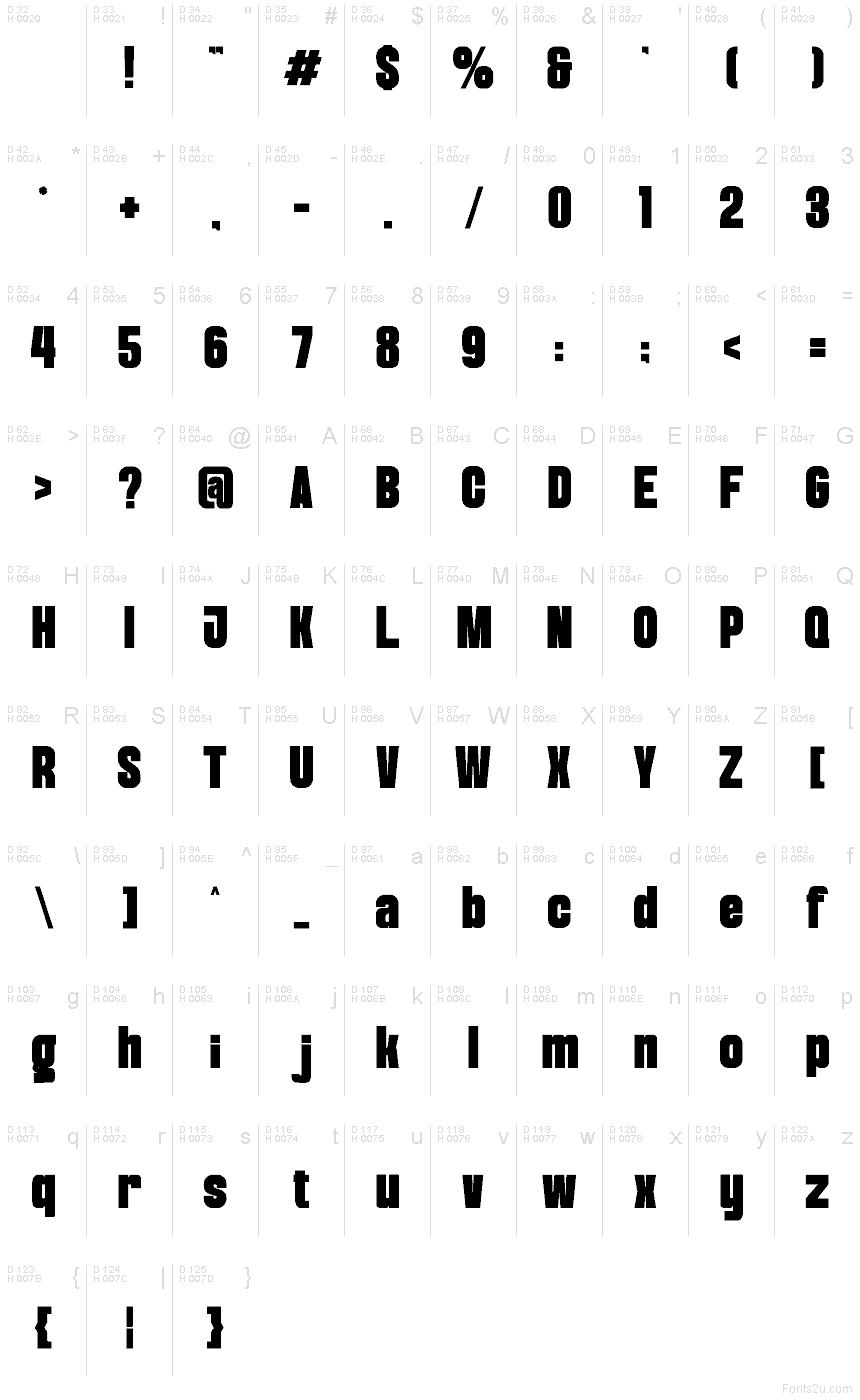
Klodera font by Ermedia Studio is a free ultra-bold display sans serif font. When you need huge impact without shouting, Klodera gets it done: chunky, monolithic letterforms with chiseled cuts and snug spacing create a dense, poster-ready rhythm that stays readable. The heavy strokes feel almost carved, giving headlines a tactile, block-printed presence that punches through busy layouts and small thumbnails.
Using Klodera, your message lands fast on posters, sports branding, concert flyers, packaging, banners, and social thumbnails. This free font shines in short headlines and punchy taglines; track it out a hair at large sizes to amplify clarity. Pair with a light geometric sans for body copy to let Klodera’s weight do the talking.